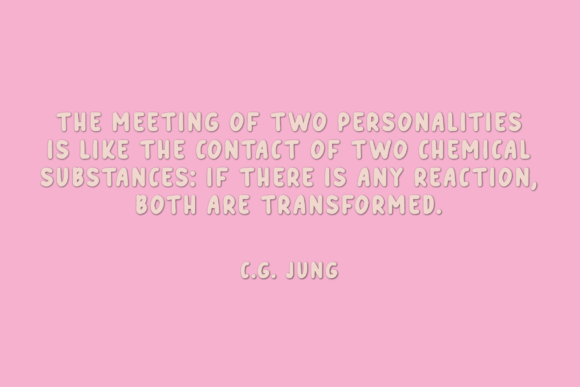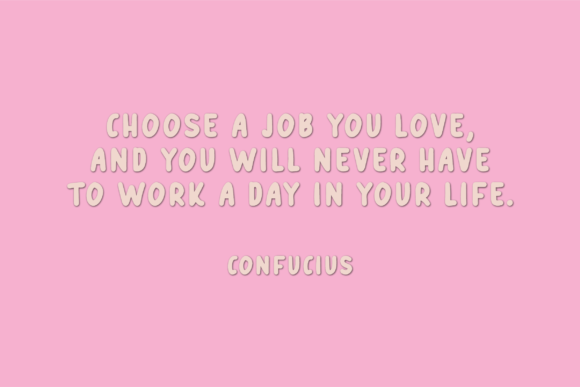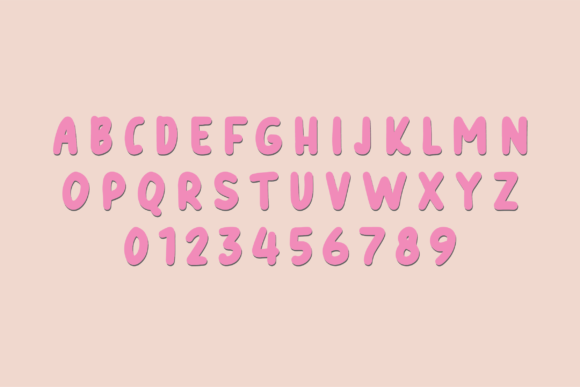
Gummy Sweets Font: A Deliciously Beautiful Handwritten Style
Are you a designer or crafter looking for a unique and attractive font to add a touch of sweetness to your projects? Look no further than the Gummy Sweets font! This beautiful handwritten font is sure to capture the hearts of anyone who lays eyes on it. With its natural and effortless curves, Gummy Sweets is perfect for a variety of creative endeavors, from quotes and diaries to books, posters, and invitations.
The Charm of Gummy Sweets Font
What sets Gummy Sweets apart from other fonts is its distinctive and charming curves. Each arrangement of the font has been carefully crafted to create a unique and natural look that is sure to stand out. The curves in each letter make it look like it was written by hand, giving it a personal and human touch that is hard to replicate with other fonts.
Versatility of Gummy Sweets Font
One of the best things about Gummy Sweets font is its versatility. It can be used in a wide range of projects, from creative writing and design to crafting and DIY. Whether you’re creating a quote for social media, a poster for an event, or an invitation for a special occasion, Gummy Sweets font is sure to add a touch of elegance and sophistication.
Gummy Sweets font is a dream come true for designers and crafters. Its unique and attractive style makes it perfect for a variety of creative projects, including:
- Quotes: Add a touch of sweetness to your inspirational quotes and make them stand out on social media.
- Diaries and Journals: Use Gummy Sweets font to add a personal touch to your diary or journal entries.
- Books: Create a beautiful and eye-catching title page or chapter headings for your book.
- Posters: Make a statement with your posters using Gummy Sweets font.
- Invitations: Add a touch of elegance to your invitations and make them truly special.
Why Choose Gummy Sweets Font?
So why choose Gummy Sweets font over other fonts? Here are just a few reasons:
- Unique and Attractive: Gummy Sweets font is unlike any other font out there. Its unique curves and natural look make it truly stand out.
- Versatile: Gummy Sweets font can be used in a wide range of projects, from creative writing to design and crafting.
- Easy to Read: Despite its unique curves, Gummy Sweets font is easy to read and understand, making it perfect for body text and headlines.
- High-Quality: Gummy Sweets font is a high-quality font that is designed to look great on any device or medium.
Tips for Using Gummy Sweets Font
Here are a few tips for using Gummy Sweets font in your projects:
- Use it sparingly: Gummy Sweets font is best used sparingly to add emphasis and create visual interest.
- Pair it with other fonts: Gummy Sweets font looks great when paired with other fonts, such as sans-serif fonts for body text.
- Experiment with colors: Gummy Sweets font looks great in a variety of colors, from bright and bold to pastel and soft.
- Have fun: Most importantly, have fun with Gummy Sweets font! Experiment with different styles and effects to make it your own.
In conclusion, Gummy Sweets font is a beautiful and attractive handwritten font that is perfect for designers and crafters. Its unique curves and natural look make it truly stand out, and its versatility makes it suitable for a wide range of creative projects. Whether you’re creating a quote, diary, book, poster, or invitation, Gummy Sweets font is sure to add a touch of elegance and sophistication. So why not give it a try and see the difference it can make in your designs?